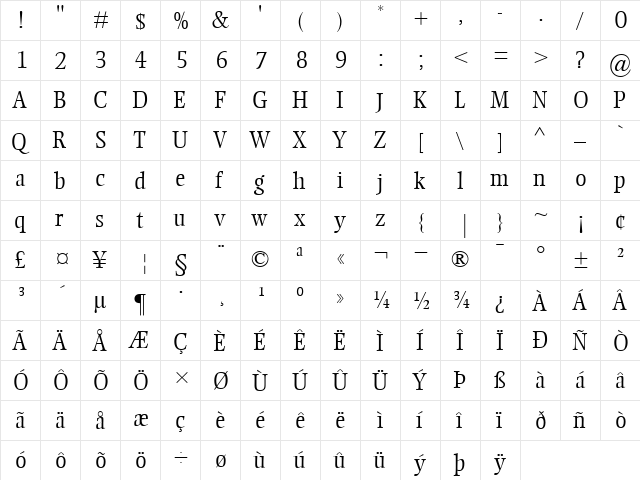
EllingtonMT-Light Light Font Preview
EllingtonMT-Light Light
Design Context for EllingtonMT-Light Typeface
EllingtonMT-Light offers clean, dependable letterforms without strong stylistic allegiance, making it a practical choice for designers who need flexibility. The delicate stroke weight brings airiness and refinement to layouts.